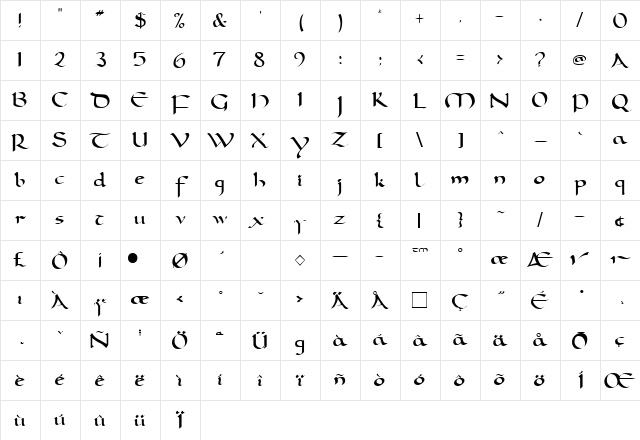
Doorman Regular
Design Context for Doorman
Doorman is a composed and adaptable typeface that performs quietly and consistently across a wide range of design contexts.
Pro Tip: Use Doorman in both headline and body roles to test its range before committing to a single application.